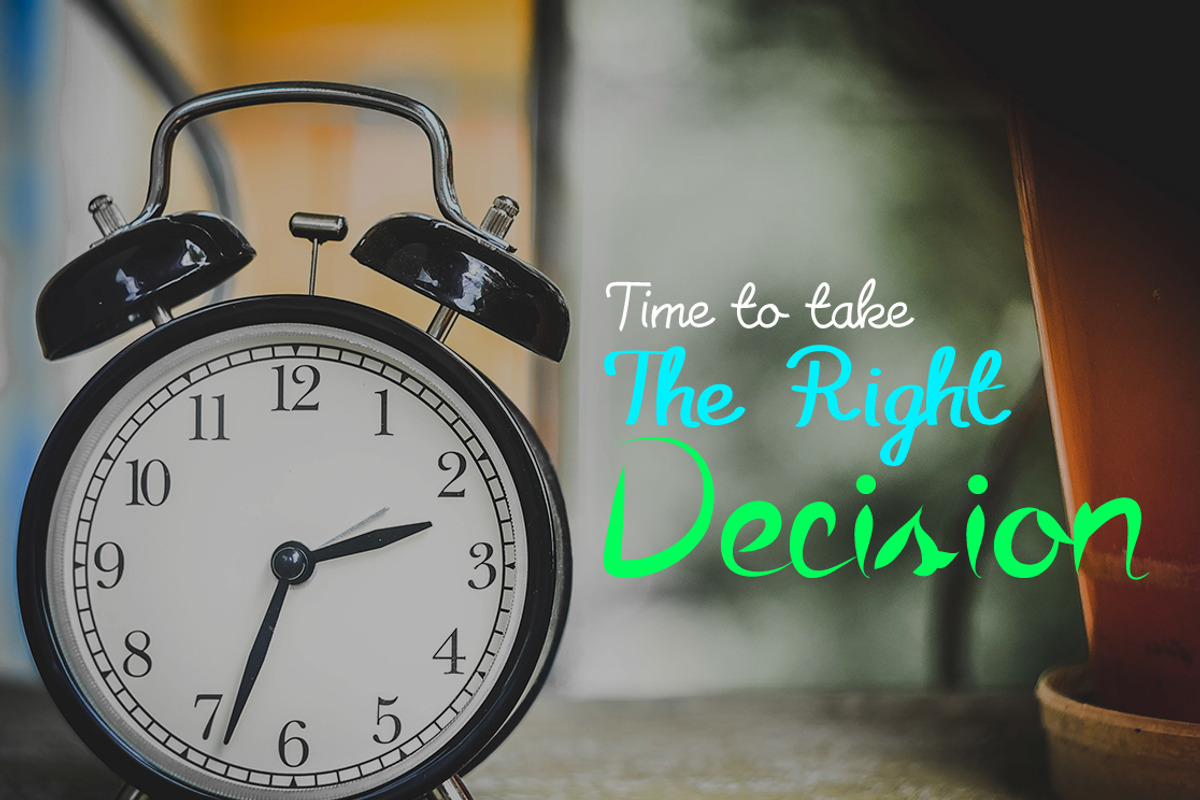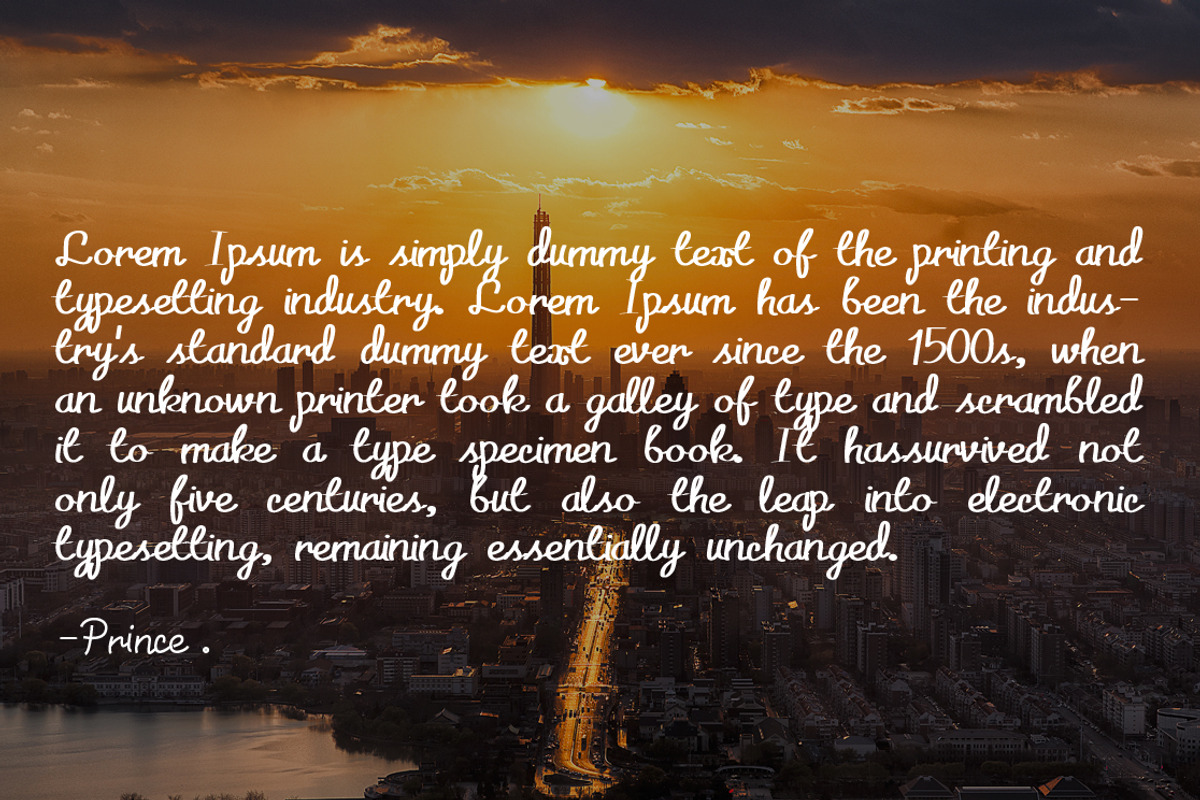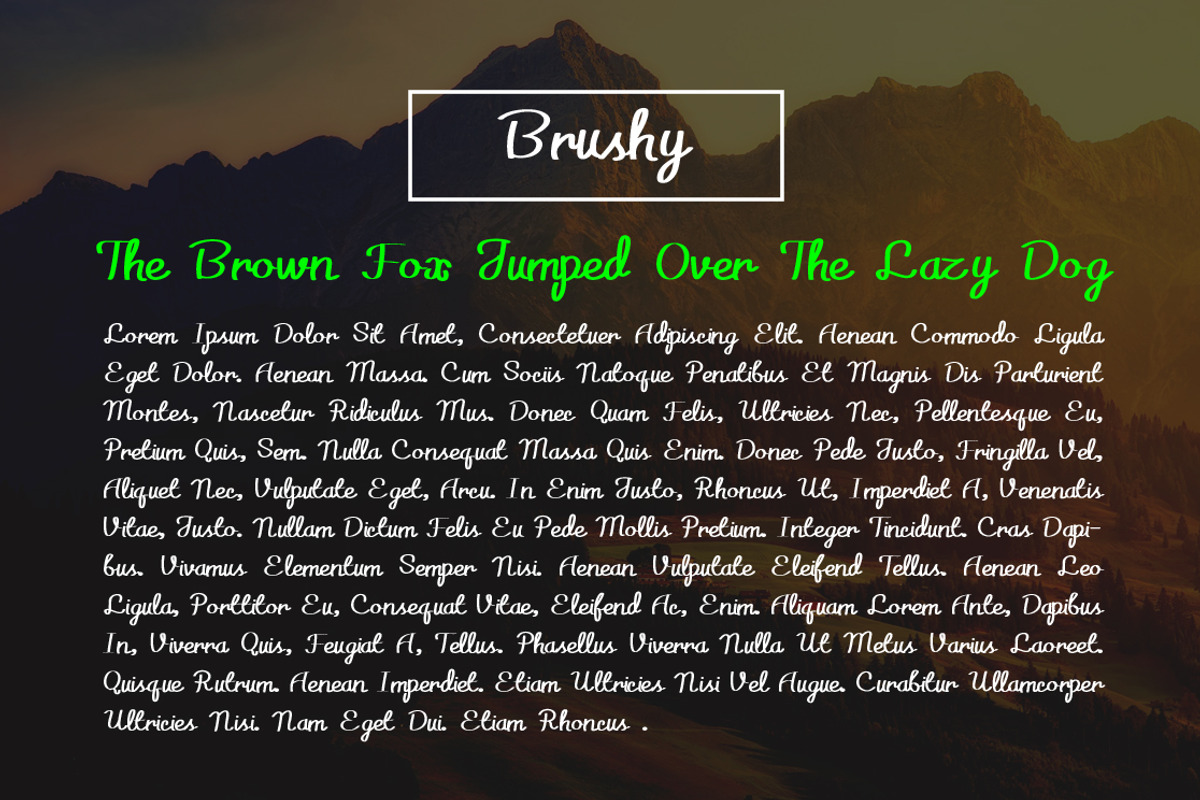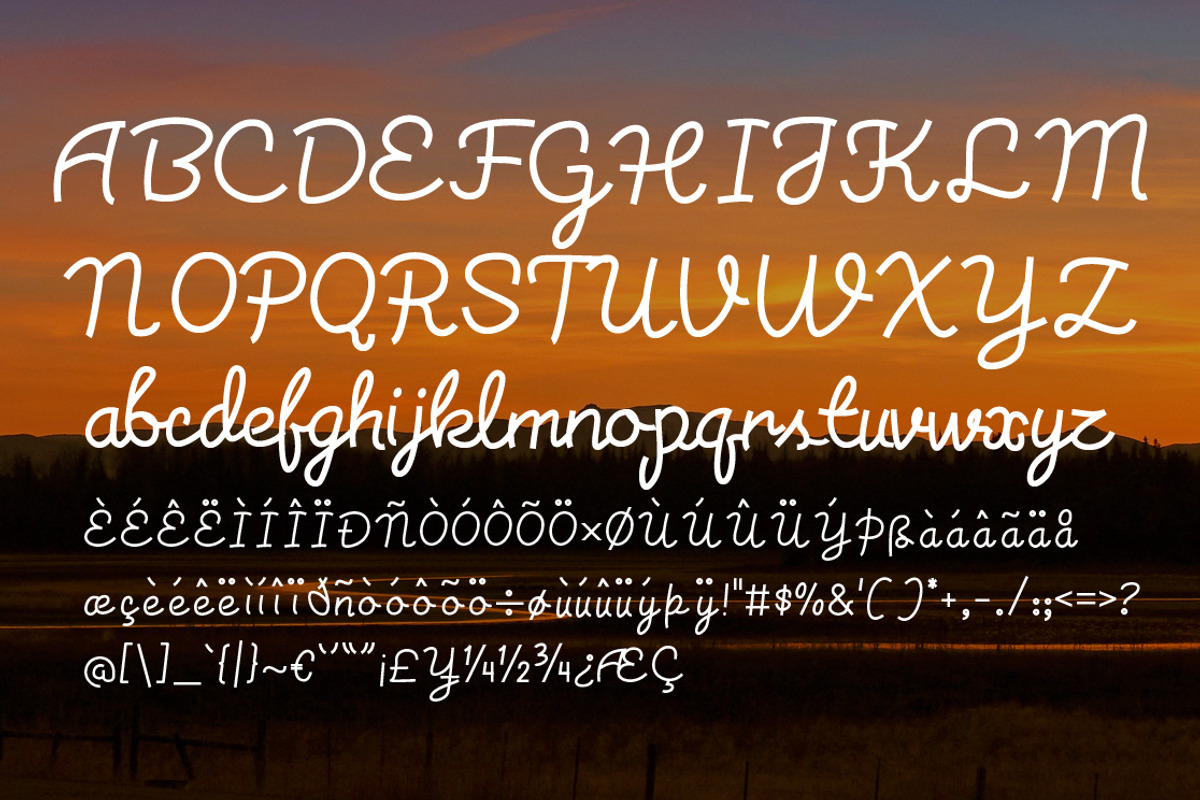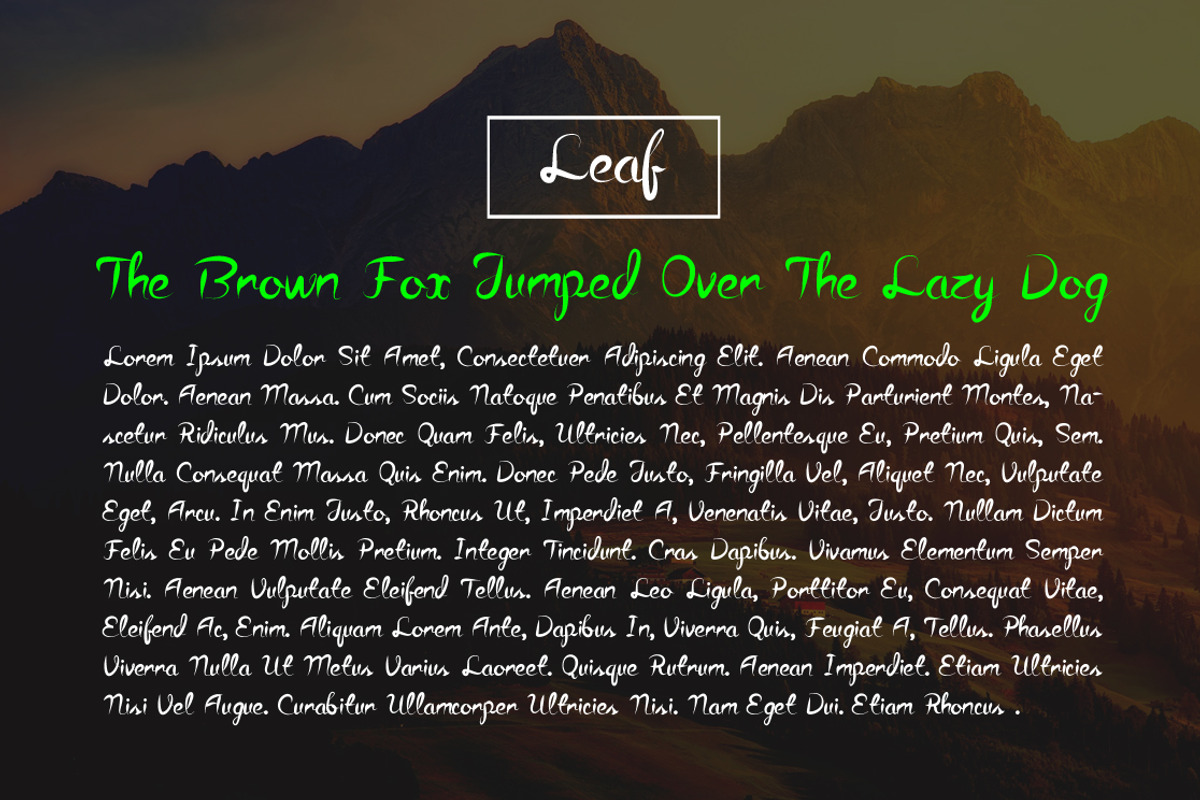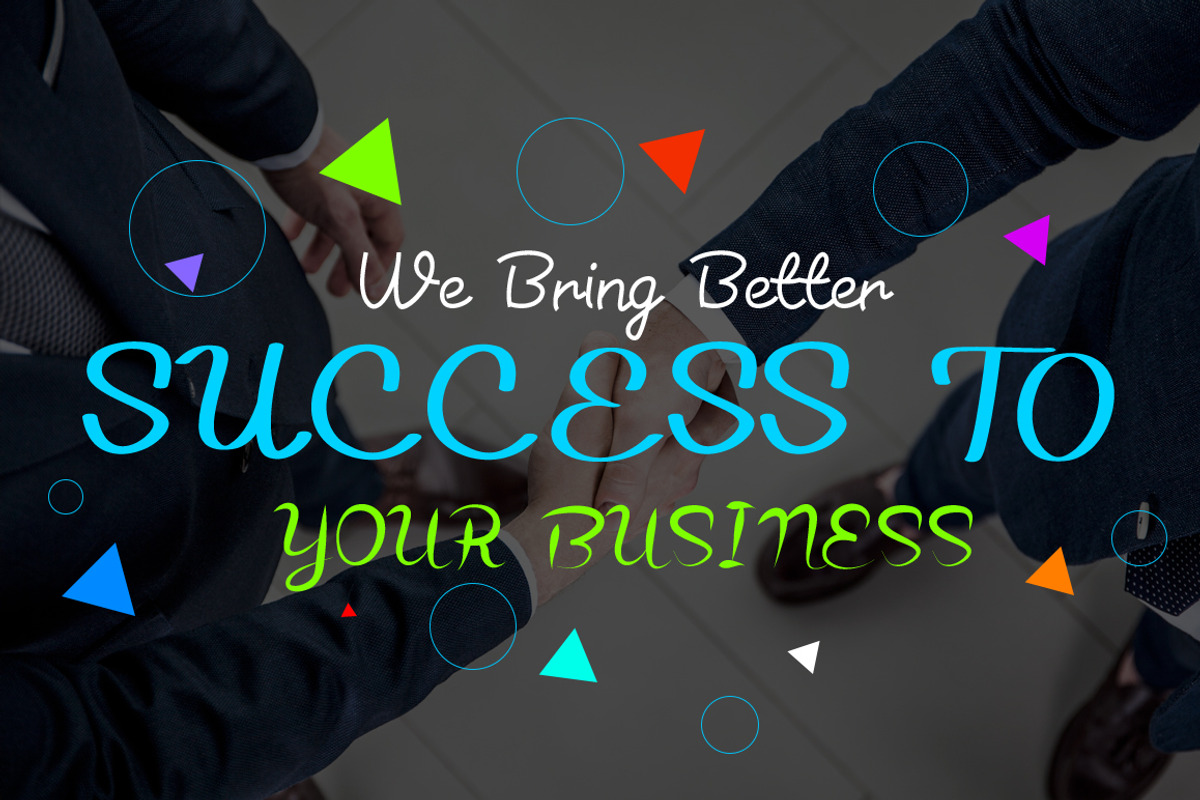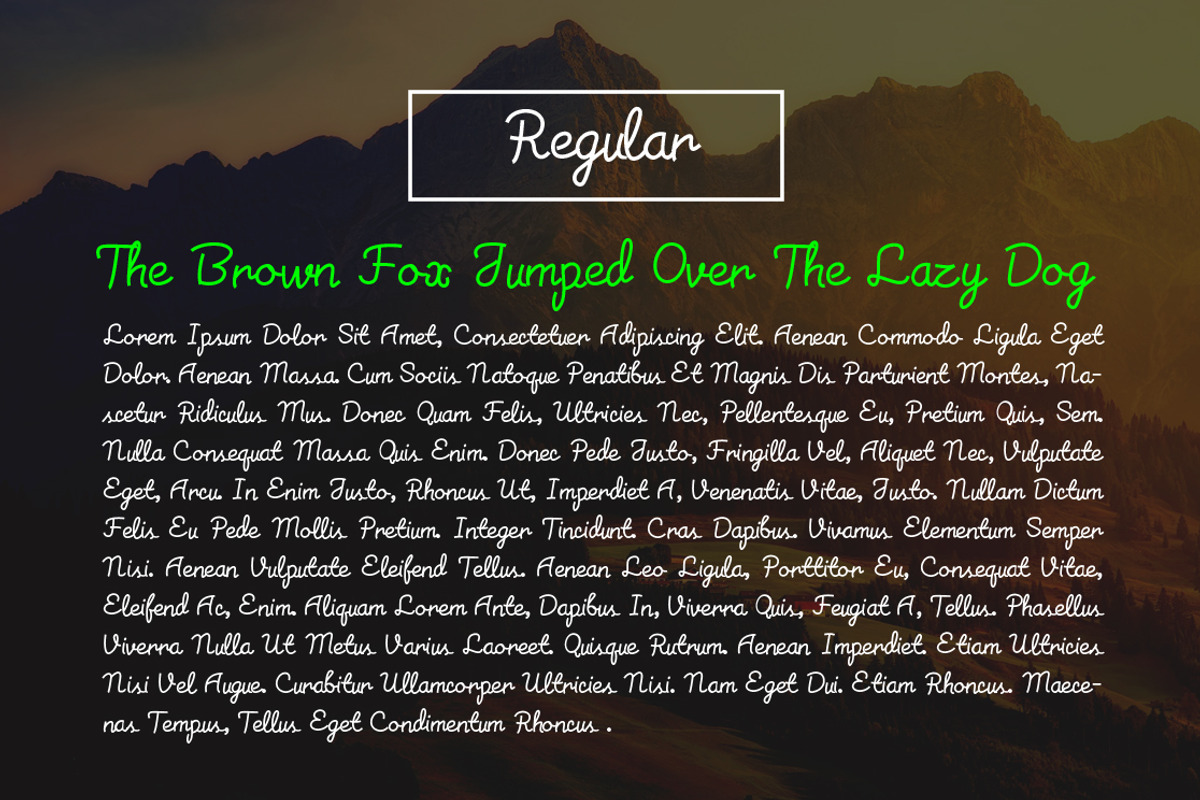
Torsion Font
" Torsion Font is a stylish Font. Available in Regular and Brand Name Line Font version with all special characters.
- Available in Regular and Brand Name Line Font version with all special characters.
- Torsion Regular
- Torsion Brushy
- Torsion Leaf
Why Torsion Font is worth a look
Torsion Font by MRI STUDIO fits naturally into Branding, posters, packaging, typography.